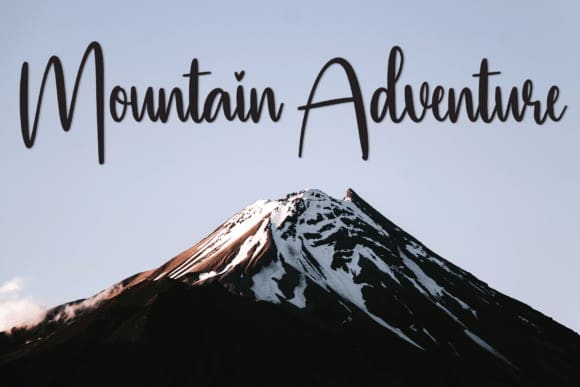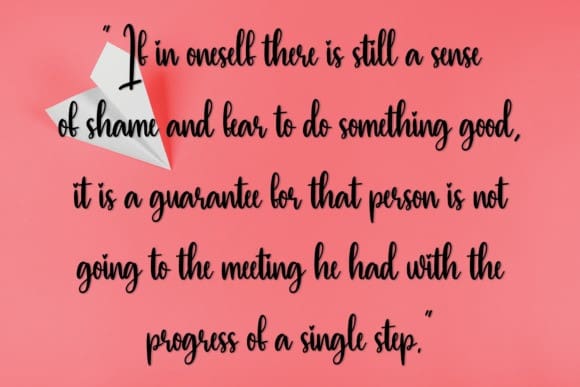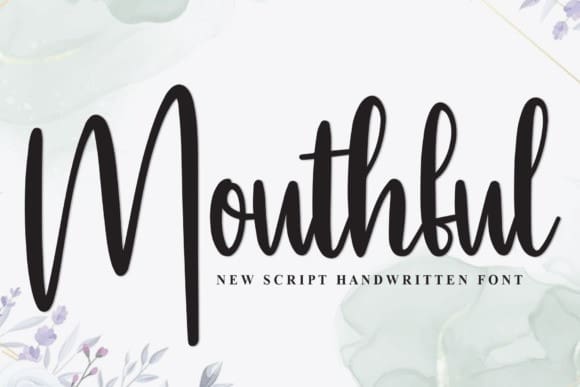
Mouthful Script Font
Mouthful Script Font, is a flowing handwritten font, described by an elegant touch, perfect for your favorite projects. Fall in love with its incredibly distinct and timeless style and use it to create spectacular designs!